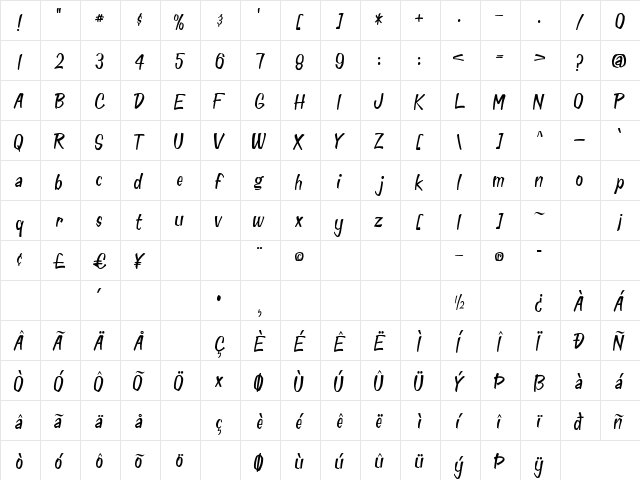
Doggie Bag Script Regular
Design Context for Doggie Bag Script Typeface
Doggie Bag Script flows with the natural rhythm of handwritten lettering, making it ideal for designs that call for warmth and personal expression.
Font Pairing: Combine Doggie Bag Script with a simple geometric sans for maximum contrast — the tension between flowing curves and clean structure is a classic typographic pairing.
Pro Tip: Pair Doggie Bag Script with a clean sans-serif for supporting text. The contrast between fluid script and geometric structure creates an elegant typographic hierarchy.